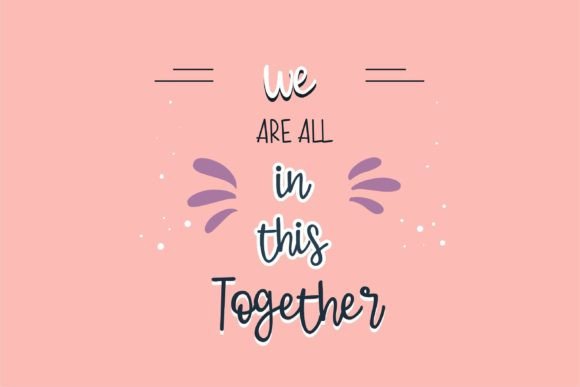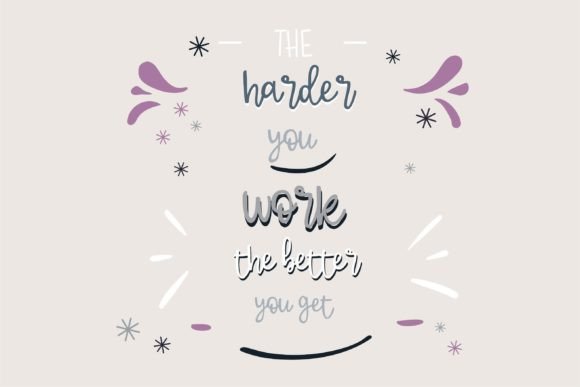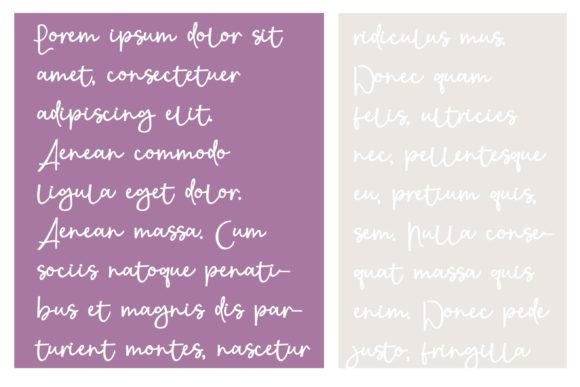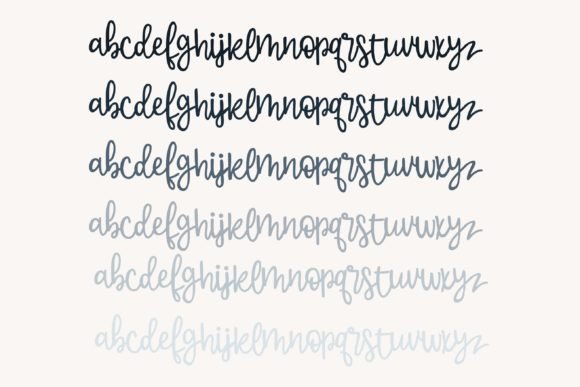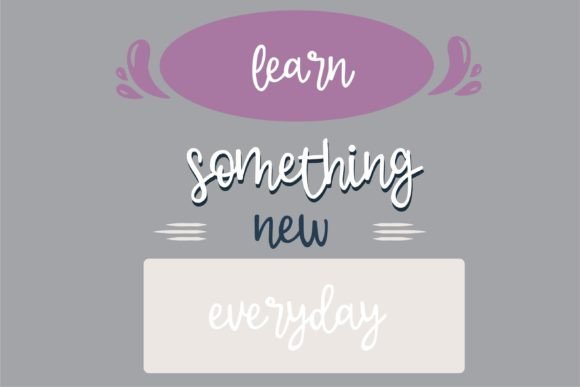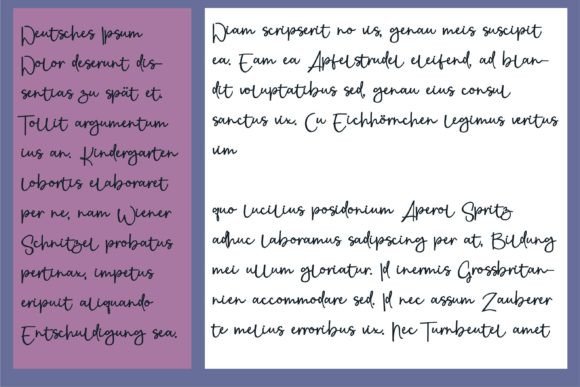
The Quirky Charm of High Point Font: A Designer’s Delight
I’ll never forget the time I was working on a branding project for a trendy home decor client. I had spent hours scouring font libraries, but nothing seemed quite right. That was until I stumbled upon High Point Font – a quirky, handwritten gem that instantly brought my design to life. If you’re a designer, crafter, or creative hobbyist looking for a font that adds a touch of personality to your projects, you’re in luck!
An Honest Review of High Point Font
So, what makes High Point Font so special? Let’s dive into the good stuff:
• Unique character: This hand-written cursive font has a bouncy, playful feel that’s perfect for adding visual interest to your designs.
• Versatility: High Point Font is suitable for a wide range of projects, from websites and svg designs to home decor, branding, blogs, logos, invitations, and more.
• 💫 Easy to read: Despite its quirky nature, High Point Font remains surprisingly legible, even at smaller sizes.
Of course, no font is perfect, and High Point Font has a few minor quirks:
• 🤔 Limited formal applications: Due to its playful nature, High Point Font may not be the best choice for super formal or corporate designs.
• ⚠️ Some letter spacing issues: As with any handwritten font, you may need to adjust letter spacing to achieve optimal results.
4. Experiment with OpenType features, such as glyphs and stylistic alternates, to add visual interest.
The Story Behind High Point Font
High Point Font was inspired by the beautiful, handwritten signs found in trendy boutiques and home decor stores. The font’s creator aimed to capture the essence of these charming signs, with all their quirks and imperfections, and turn them into a digital font that’s both functional and visually appealing.
Q: Is High Point Font suitable for body text? A: While High Point Font is legible, it’s best suited for headings, titles, and short paragraphs. For longer body text, a more traditional font might be a better choice.
Q: Does High Point Font come with any special features? A: Yes, High Point Font includes OpenType features, glyphs, and stylistic alternates, allowing you to customize your text and add visual interest.
Q: Is High Point Font easy to read? A: Despite its quirky nature, High Point Font remains surprisingly legible, even at smaller sizes. However, it’s best used in moderation and in combination with other fonts for optimal readability.